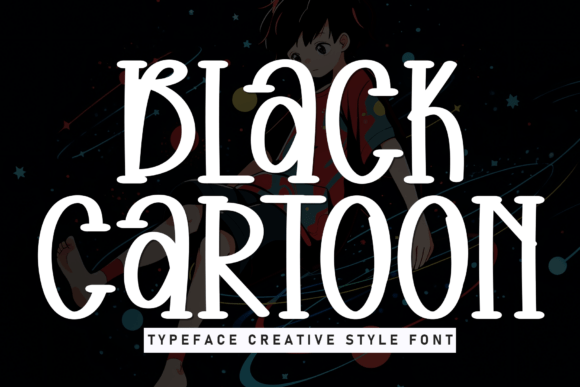
The Ultimate Guide to Black Cartoon Font: Adding a Pop of Personality to Your Designs
I’ll never forget the time I was working on a project for a children’s book, and I was struggling to find the perfect font to match the playful and quirky illustrations. The client wanted a font that would appeal to kids and add a fun touch to the story. After hours of searching, I stumbled upon the Black Cartoon Font, and it was love at first sight! ✨
With its bold and quirky display style, Black Cartoon Font has become a staple in my design toolkit. Its playful curves and tall proportions make it perfect for cartoon titles, comic covers, kids’ designs, games, and creative branding projects. In this article, I’ll share my honest review of the font, provide a practical guide on how to use it, and explore similar fonts and alternatives.
- ✨ Bold and eye-catching: The Black Cartoon Font is designed to grab attention, making it perfect for titles, headings, and promotional materials.
- ✅ Playful curves: The font’s playful curves and rounded edges give it a friendly and approachable feel.
- 🎉 Retro-inspired: The font’s retro vibe adds a touch of nostalgia and whimsy to any design.
- 💻 Highly versatile: The font can be used for a wide range of projects, from kids’ designs to games and branding.
While the Black Cartoon Font is an amazing addition to any design, there are a few things to keep in mind: 🤔
- ⚠️ Legibility at small sizes: Due to its bold and playful nature, the font may become less legible at very small sizes.
- ⚠️ Limited use for body text: The font is best suited for headings and titles, rather than body text.
The Black Cartoon Font was inspired by the classic cartoons and comics of the 80s and 90s. The designer aimed to create a font that would evoke a sense of nostalgia and playfulness, while also being highly legible and versatile.
Q: What type of projects is Black Cartoon Font best suited for?
A: Black Cartoon Font is perfect for cartoon titles, comic covers, kids’ designs, games, and creative branding projects.
Q: Is Black Cartoon Font available in different styles or variations?
A: Yes, the font comes with various stylistic alternates, glyphs, and OpenType features that allow for customization.